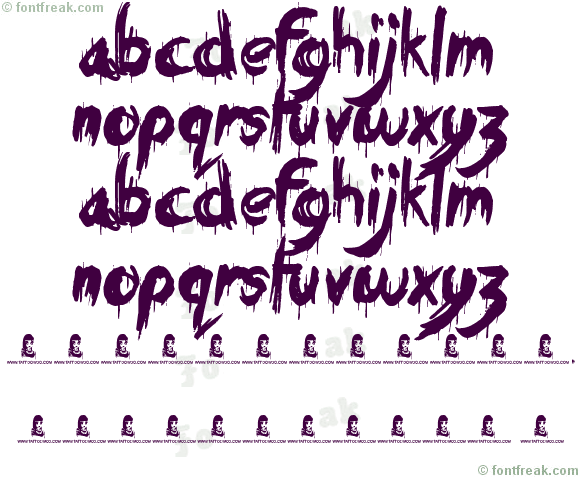
Eating You Alive
About Eating You Alive
The "Eating You Alive" font by Jonathan S. Harris is a striking display typeface that embodies a bold and expressive style. This font falls under the decorative category, characterized by its dynamic and unconventional design. The strokes are uneven and organic, giving a sense of rawness and energy that captures attention immediately. The contrast between thick and thin strokes adds to its visual impact, while the spacing is intentionally varied to enhance its artistic flair. Decorative elements, such as drips and irregular edges, evoke a sense of urgency and emotion, making it ideal for projects that require a strong visual statement.
This font is particularly well-suited for a variety of creative applications. It shines in contexts such as movie posters, where it can convey a sense of drama and intensity. Restaurant menus benefit from its unique style, creating an atmosphere that complements bold culinary offerings. Additionally, it serves well in promotional materials for events like music festivals or art exhibitions, where an edgy and artistic touch is necessary. Graphic designers and content creators looking to make a memorable impression will find this font a valuable asset in their toolkit.
The target audience for the "Eating You Alive" font includes graphic designers, small business owners, and anyone looking to make a bold statement with their visual communications. This font stands out due to its unique aesthetic and ability to convey emotion, making it not just a typeface but a powerful design element that can elevate any project. For those interested in incorporating this distinctive style into their work, the Eating You Alive font free download offers an accessible way to bring creativity and character to their designs.